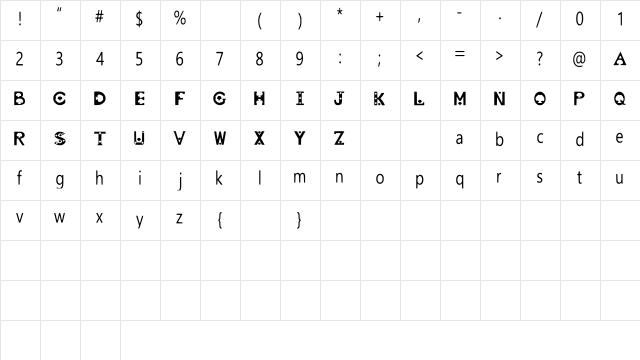
Oromo_Arts_Font Medium
Design Context for Oromo_Arts_Font Typeface
Oromo_Arts_Font is a composed and adaptable typeface that performs quietly and consistently across a wide range of design contexts.